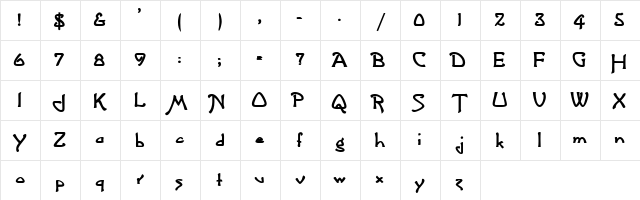
Sophia Bold
Design Context for Sophia
Sophia is a composed and adaptable typeface that performs quietly and consistently across a wide range of design contexts. Its bold stroke weight gives it real presence on the page.